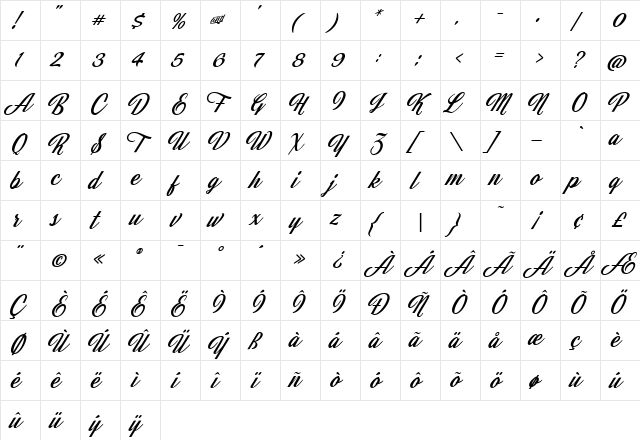
Jasmine And Greentea Regular
| Designer | Clement Nicolle - StereoType |
Design Context for Jasmine And Greentea Typeface
Jasmine And Greentea is a composed and adaptable typeface that performs quietly and consistently across a wide range of design contexts.